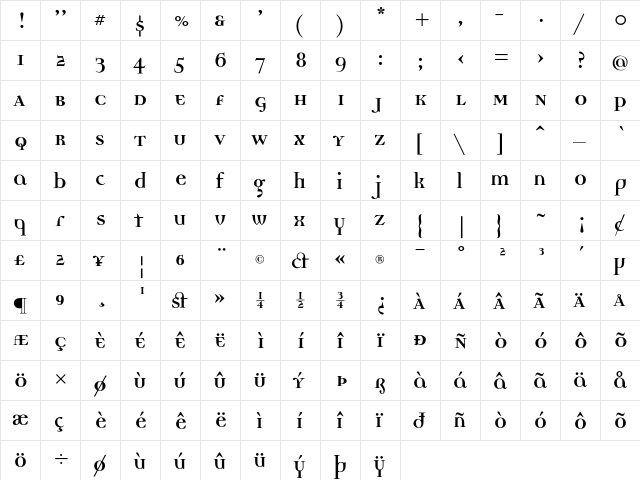
DemocraticaBoldOldstyle Regular
Design Context for DemocraticaBoldOldstyle Typeface
DemocraticaBoldOldstyle carries the refined structure of traditional serif typography, with bracketed terminals and considered proportions that communicate credibility and craft. The heavy weight commands attention and anchors typographic hierarchies.
Pro Tip: Use DemocraticaBoldOldstyle for editorial body copy and considered headline work. Pair with a neutral sans for UI elements or captions to create a classic hierarchy.